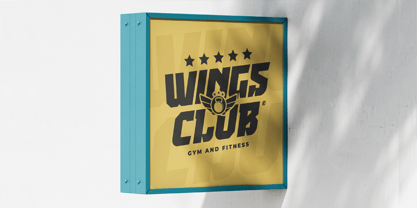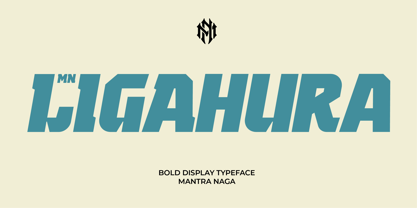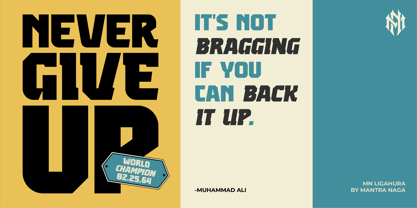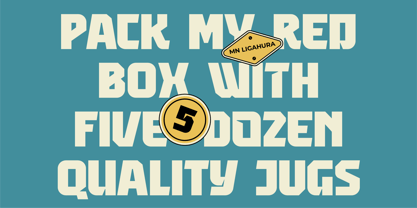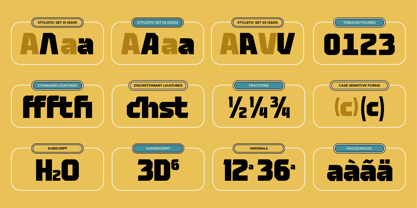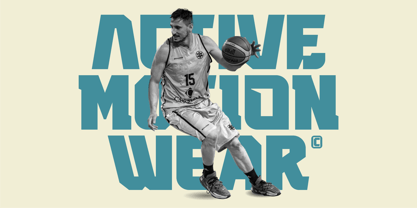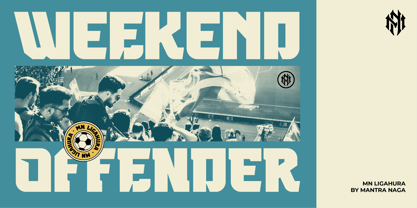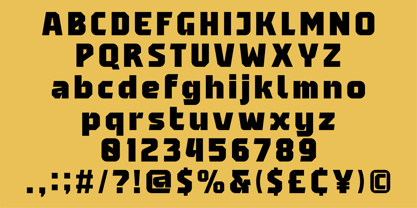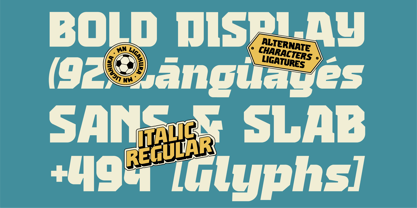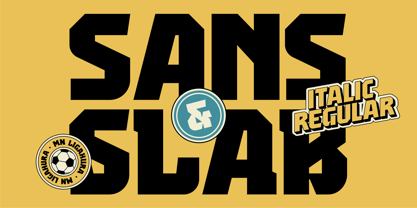
MN Ligahura
MN Ligahura grabs attention as a bold display typeface. It effortlessly blends sporty energy with playful charm. Drawing inspiration from the Lastari font, it refines the concept further. Moreover, the typeface features rounded and chamfered corners with subtle inktraps, which together create a distinctive, modern look full of personality.
With four versatile styles—Slab, Slab Italic, Sans, and Sans Italic—MN Ligahura seamlessly meets the needs of a wide variety of creative projects. Whether you’re crafting a dynamic logo, a striking poster, or an eye-catching headline, this typeface consistently delivers impressive results.
Furthermore, it includes 494 meticulously designed glyphs, support for 92 international languages, and powerful OpenType features such as Stylistic Alternates, Ligatures, and more. As a result, MN Ligahura empowers designers to unleash their creativity with ease and confidence.
Why Choose MN Ligahura?
• Multilingual Excellence: Supports 92 languages, making it perfect for global projects.
• Dynamic Styles: Choose from Slab, Slab Italic, Sans, and Sans Italic for ultimate flexibility.
• Rich OpenType Features: Includes 7 Standard Ligatures, 11 Discretionary Ligatures, 3 Stylistic Sets, Case-Sensitive Forms, and Fractions.
• Perfect for Bold Statements: Ideal for branding, packaging, posters, editorial headlines, and web design.
Elevate your designs with MN Ligahura—a typeface that adds boldness, energy, and a modern touch to any project!